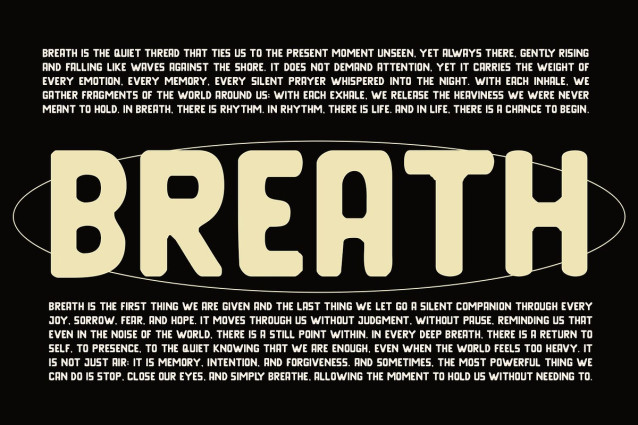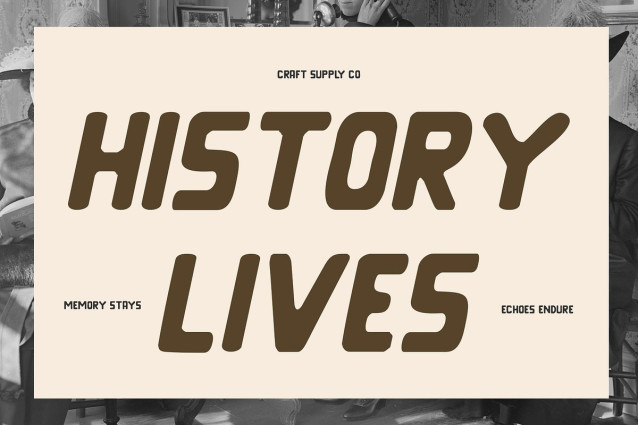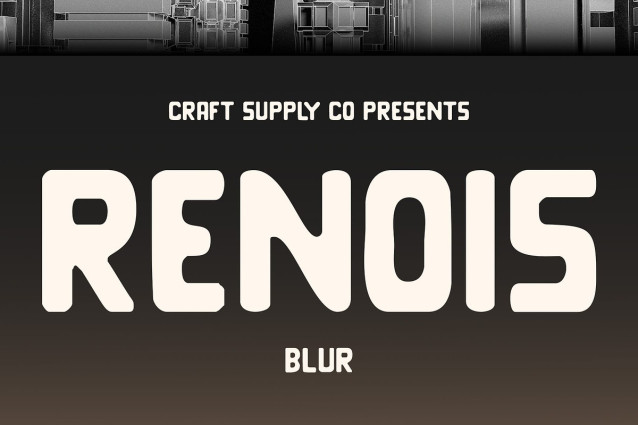
Renois Blur Font
Renois Blur Font is a modern sans serif font that blends bold, confident letterforms with smooth, slightly rounded edges. Its clean yet approachable design offers a strong visual impact while maintaining a friendly tone. Enhanced by a unique blur effect, it introduces softness and movement to an otherwise sturdy structure.
Bold Yet Friendly Aesthetic The bold weight of Renois Blur delivers clarity and power, while the subtle curvature of its forms brings warmth and personality. This balanced contrast makes it ideal for brands and creatives who want to stand out without being overly aggressive—designs that speak with strength but also connect emotionally.
Artistic Blur for Visual Motion The soft blur detail adds a layer of artistic depth, creating a sense of motion and visual intrigue. This feature makes Renois Blur perfect for experimental projects, creative posters, and anything seeking to capture attention with a fresh, modern twist.
Perfect for Expressive Visuals Whether you’re crafting branding, event graphics, album covers, or editorial titles, Renois Blur provides a dynamic and captivating typographic voice. It’s especially suited for bold, creative concepts that aim to communicate uniqueness, energy, and a forward-thinking spirit.